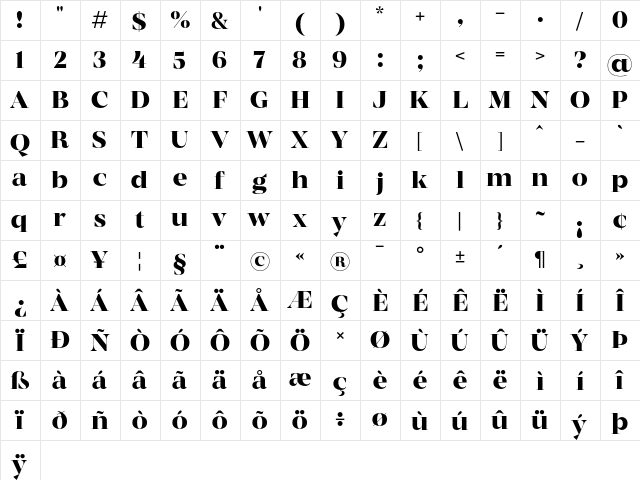
MADE Coachella Medium
Design Context for MADE Coachella Typeface
MADE Coachella takes a measured approach to typography — its balanced proportions and neutral character make it a reliable workhorse for both digital and print work.
Pro Tip: Use MADE Coachella in both headline and body roles to test its range before committing to a single application.